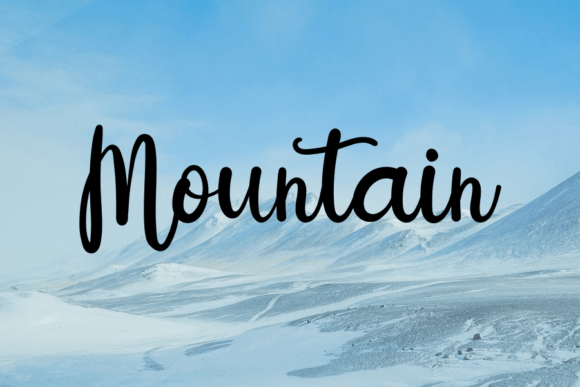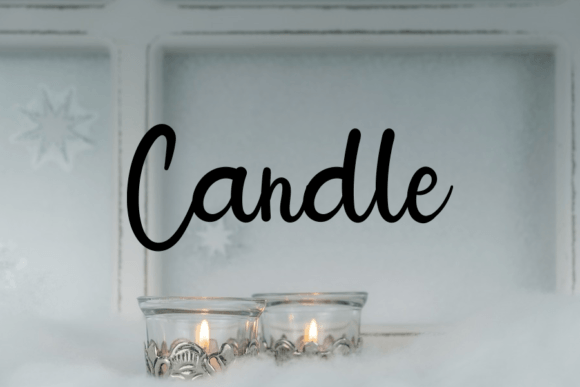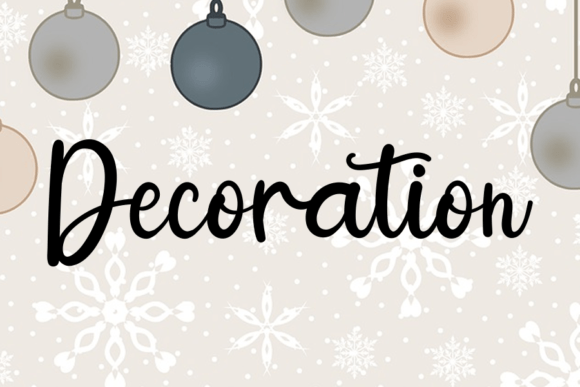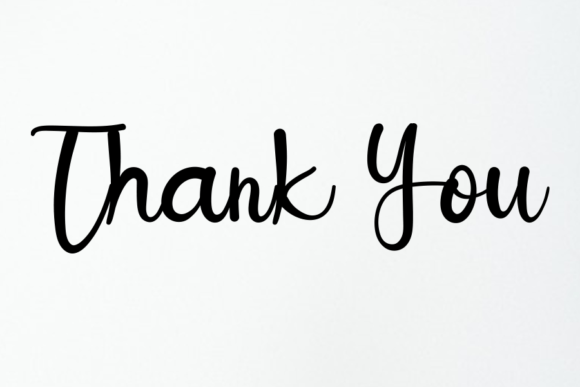
The Creative Font: A Friendly Handwritten Companion for All Your Design Needs
I’ll never forget the time I was working on a greeting card project for a friend’s birthday. I had the perfect design in mind, but I just couldn’t find the right font to bring it all together. The card needed to feel personal, yet playful; elegant, yet approachable. That’s when I stumbled upon the Creative font, and it quickly became my go-to for all sorts of projects. In this article, I’ll share my experience with this beautiful font, its features, and how you can make the most of it in your designs.
An Honest Review of Creative Font
What I Love About Creative Font
• ✨ Simple and friendly handwritten style that’s versatile for various projects
• ✅ Easy to read, even at smaller sizes
• 💕 Perfect for crafts, digital design, presentations, and creating greeting cards
• 🎨 Great for adding a personal touch to your designs
While Creative font is amazing for most projects, there are a few things to keep in mind:
• 🤔 It may not be the best choice for very formal or corporate designs, as it has a distinctly casual feel.
The Story Behind Creative Font
Creative font was designed with the intention of bringing a friendly, approachable feel to digital and print designs. Its creator aimed to craft a font that could easily be used across various platforms and projects, from professional presentations to personal greeting cards. The result is a beautifully simple yet versatile font that has captured the hearts of designers and hobbyists alike.